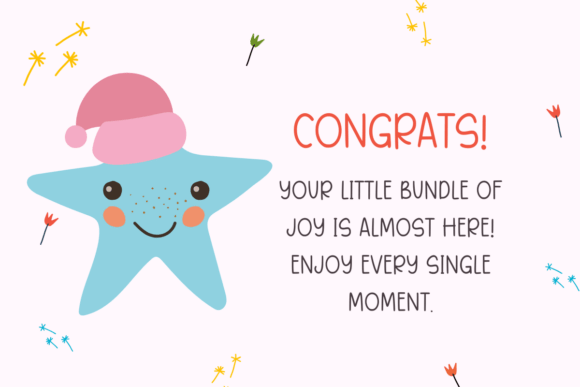
Rhinestone Yourself Font
Rhinestone Yourself — Playful Sans Serif Font
Meet Rhinestone Yourself, a bold and bubbly sans serif font that brings instant joy to any design! Its soft curves and friendly style make it the perfect companion for fun projects, girly themes, and all things sparkly.
Charming and Modern
This typeface captures the feel of modern hand-drawn lettering — smooth, rounded, and full of personality. It’s playful but neat, giving you that effortless balance between casual and clean. Every letter shines with confidence, just like rhinestones catching the light.
Perfect for Creative Projects
Rhinestone Yourself is ideal for stickers, t-shirts, branding, social media posts, greeting cards, or craft designs. It adds a cheerful and trendy touch, making your words pop with an approachable and stylish vibe.
Design Personality
Friendly and uplifting, Rhinestone Yourself radiates positivity. The letters are rounded and slightly playful, evoking a handmade feel that’s great for lifestyle brands, digital planners, and DIY projects. It’s cute, confident, and ready to sparkle in your next creation!
Make It Shine
Turn your text into a statement — simple yet dazzling. Rhinestone Yourself helps your words stand out while keeping a warm and modern aesthetic that suits any fun-loving design.